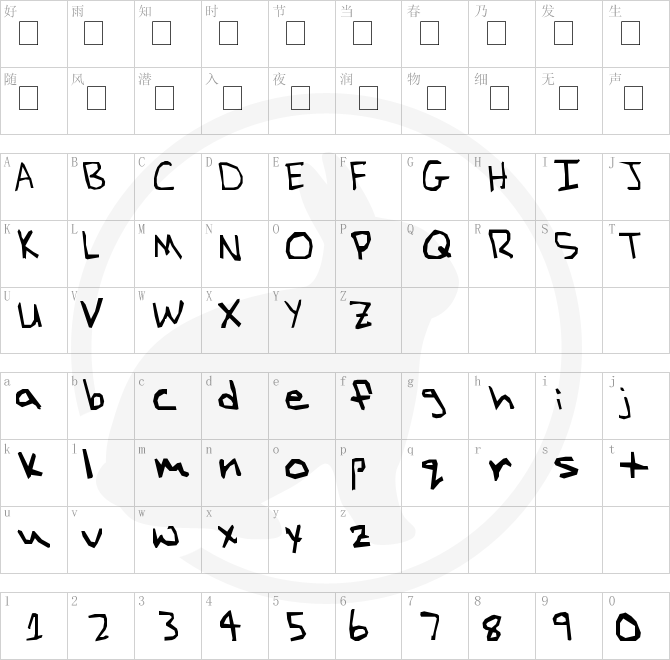
- Font Name:Jack's Handwriting
Jack-s-Handwriting.ttf is a very beautiful artistic font, Jack-s-Handwriting.ttf is widely used in the design and printing of various books and pictures,Jack-s-Handwriting.ttf has a strong visual impact,Jack-s-Handwriting.ttf is a commonly used font in newspapers, magazines and books, and is used in posters, e-commerce Poster design, store design, logo design, font design and other fields.Jack-s-Handwriting.